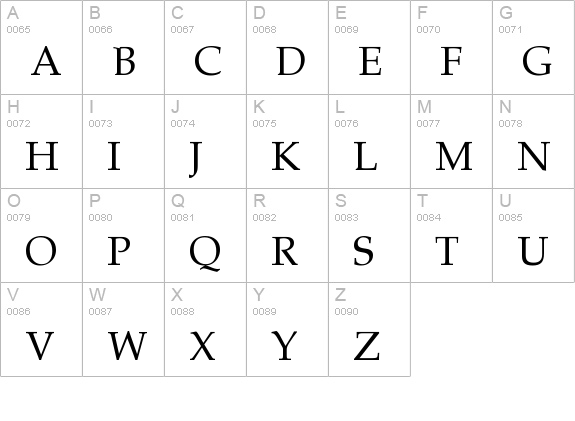
Palazzo-Regular is the standard, neutral variant in the Palazzo typeface family \xE2\x80\x94 well suited to general body text, paragraphs, and standard typographic work.
Palazzo-Regular font is a timeless and elegant typeface that exudes sophistication and style. With its classic serifs and clean lines, this font is perfect for projects that require a touch of refinement and class. Whether you're designing invitations, logos, or editorial layouts, Palazzo-Regular is sure to elevate your work to the next level. The best part about Palazzo-Regular font is that it is completely free to download at FontsMarket.com. This means you can access this premium-quality font without having to spend a dime. Don't miss out on the opportunity to enhance your designs with the beauty and elegance of Palazzo-Regular font. Download it today and start creating stunning visuals that will leave a lasting impression.